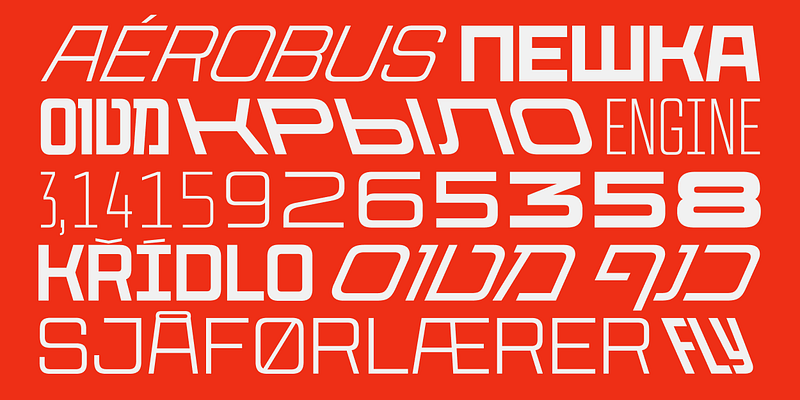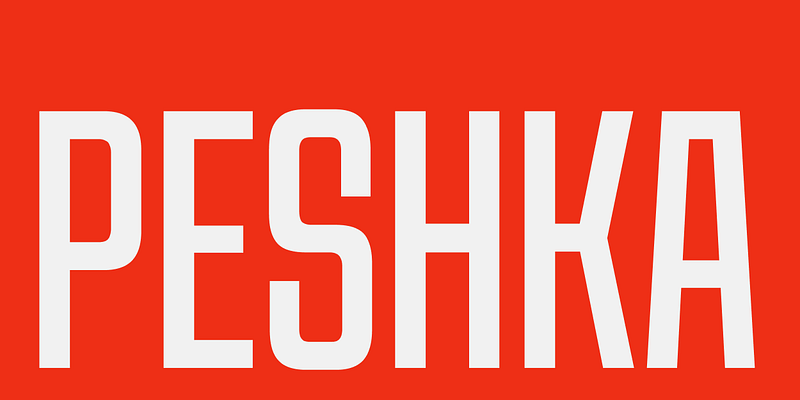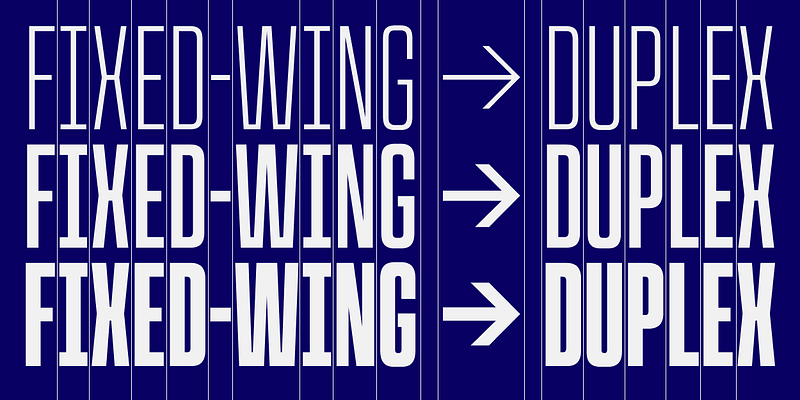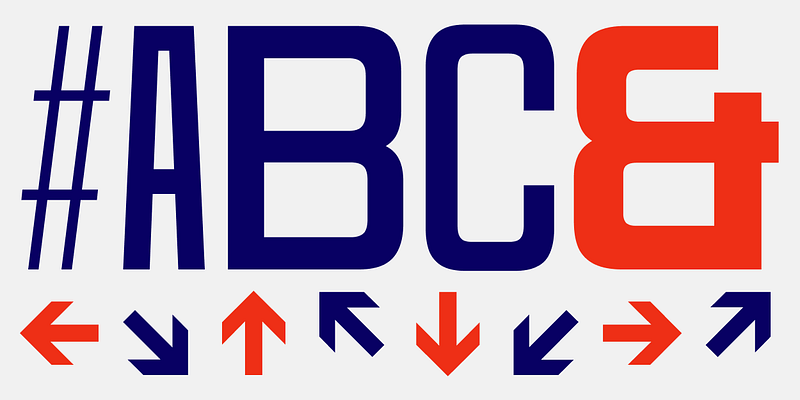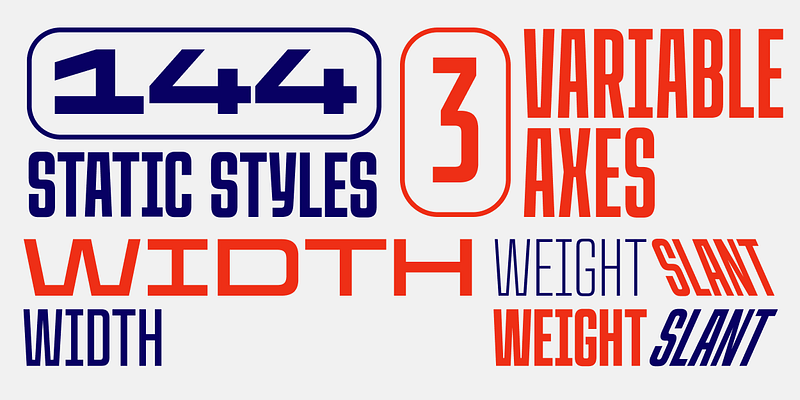
CoFo Peshka is based on examples of industrial lettering from the early 20th сentury, and yet the design is not limited to being a pure revival. Seemingly square, blocky and brutal, CoFo Peshka nevertheless embodies familiarity and friendliness. We pushed the initial idea to a variety of extremes, added extensive language and character support and developed it as a variable typeface from the very start. Available in a range of weights, widths and slants (including backslant), Peshka grew into a type family that allows nearly endless possibilities. Additionally, it is also multiplexed, meaning the glyphs keep the same width across all weights (changing the weight won’t change your line of text). This, together with the wide variety of styles, makes the typeface particularly fun to play with in motion design and animation. Peshka has an extensive language support: it comes not only in Latin and Cyrillic, but also in Hebrew. The character set includes: two styles of fractions, superiors, inferiors, and an extensive set of currencies. At last we even designed two sets of accented characters so that you can make the line space extremely tight. You may ask, is there anything that Peshka does not have? Unfortunately, it is still a unicase typeface. So far we cannot imagine a matching lowercase for it. But who knows, maybe one day…